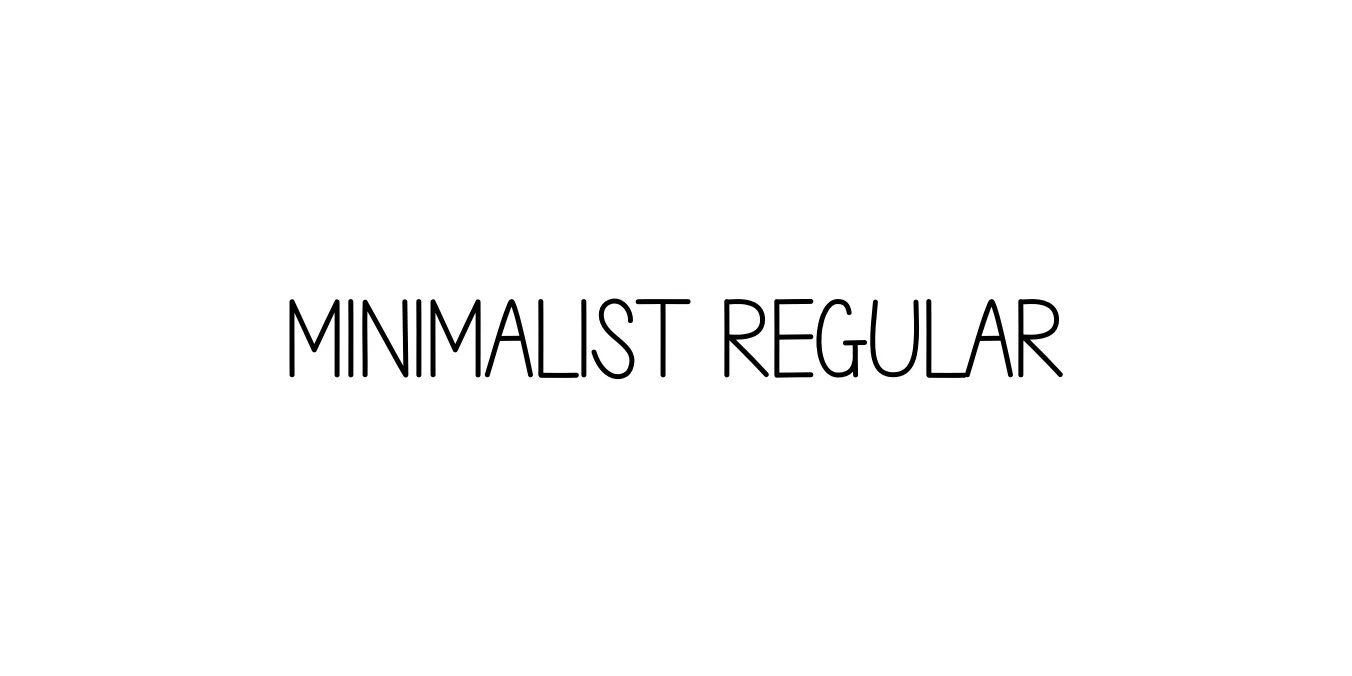
Minimalist Regular
Designed by Pratama Yudha
Minimalist Regular is a sleek, sans-serif typeface meticulously crafted with the "less is more" philosophy in mind. It features ultra-clean lines, balanced proportions, and an airy feel, making it an ideal choice for modern branding projects, high-end editorial designs, and high-fashion visual identities that require a touch of effortless sophistication.
Originally released to cater to the growing demand for uncluttered visual communication, this font family excels across both digital and print media. Its geometric foundation ensures exceptional legibility at various scales, from crisp mobile application interfaces to large-scale architectural signage and minimalist corporate reports.
Minimalist Regular Best Uses
Perfect for creating sophisticated logos and minimalist brand identities.
Provides a clean and professional aesthetic for modern, high-conversion websites.
Excellent for luxury magazines, brochures, and minimalist layout designs.
Highly legible for application interfaces, dashboards, and mobile user experiences.